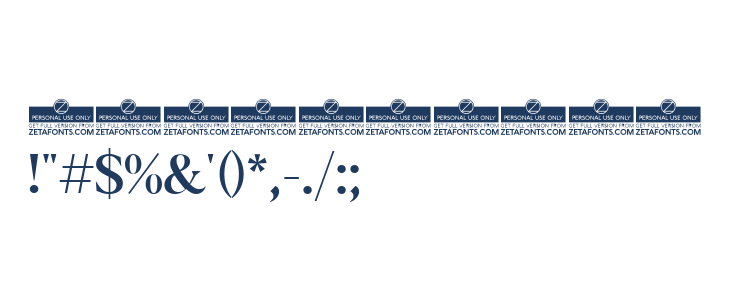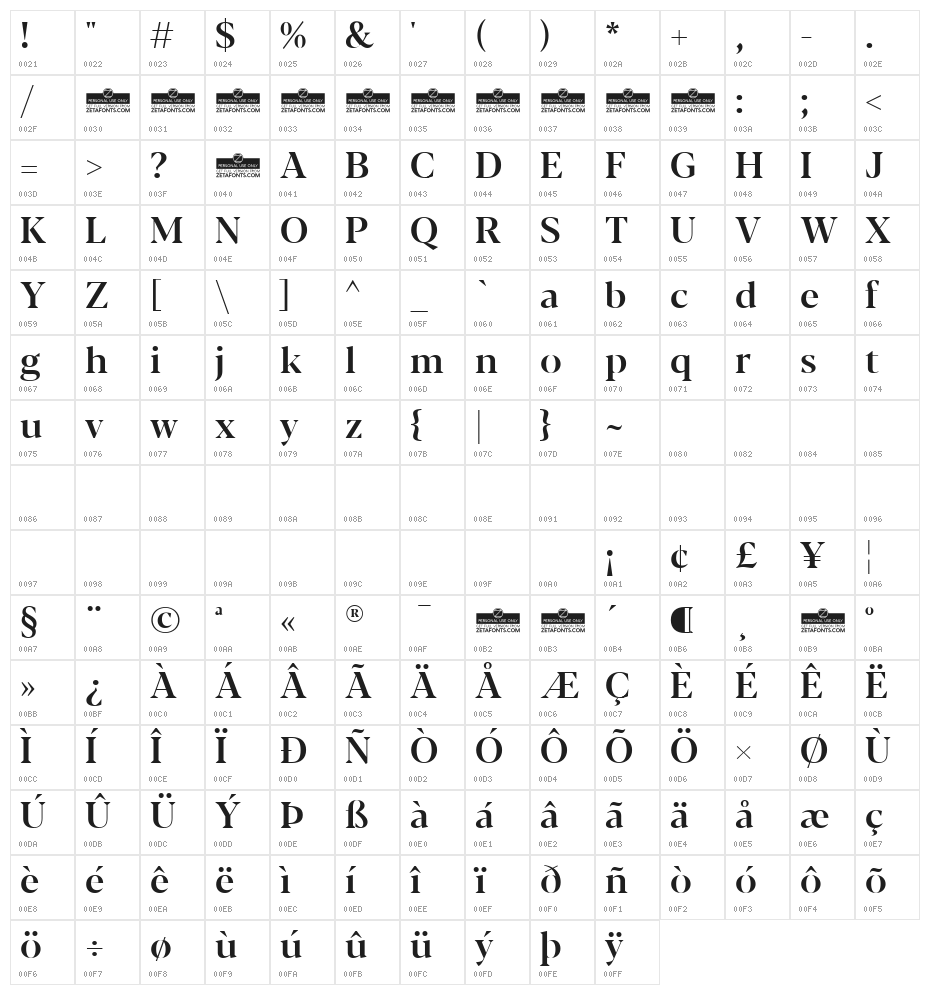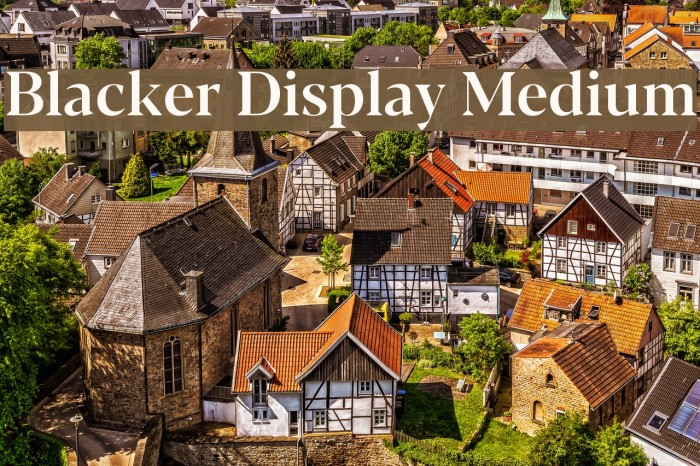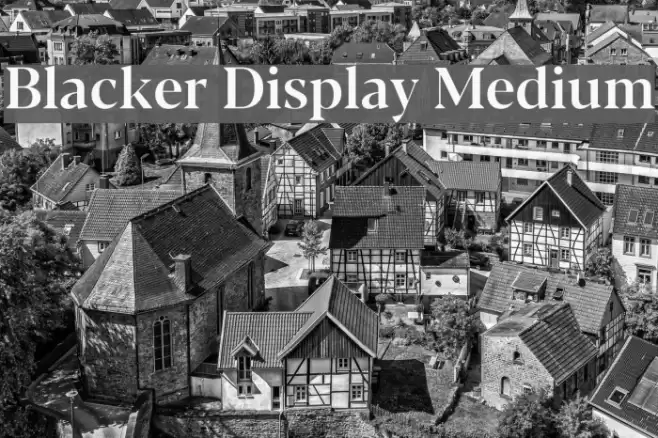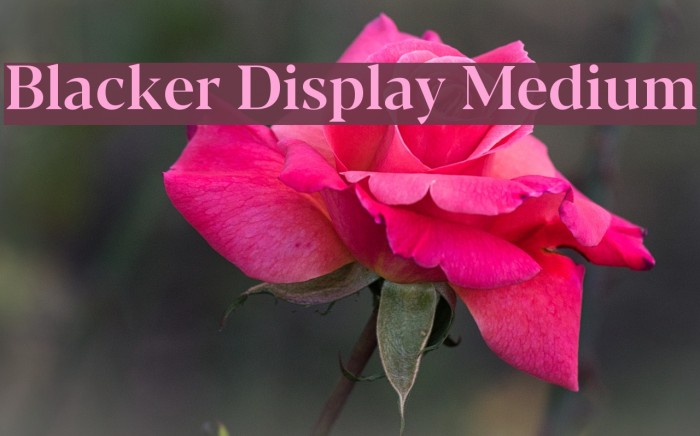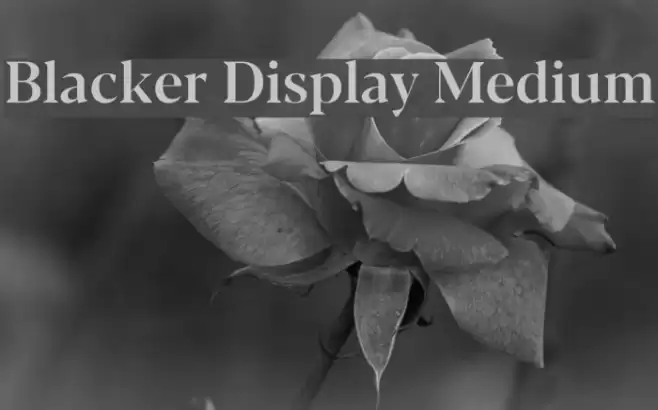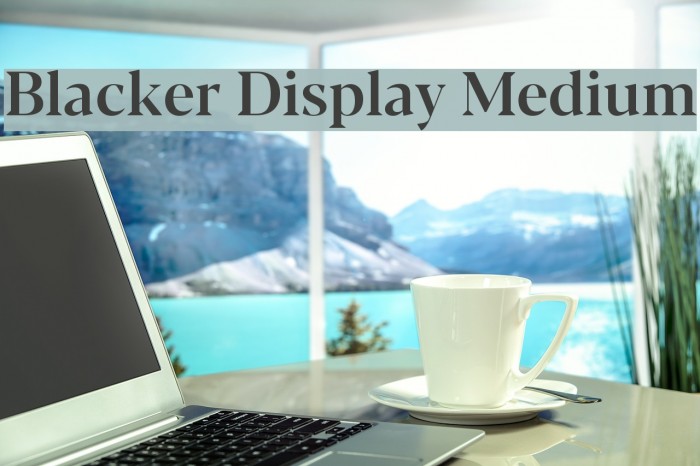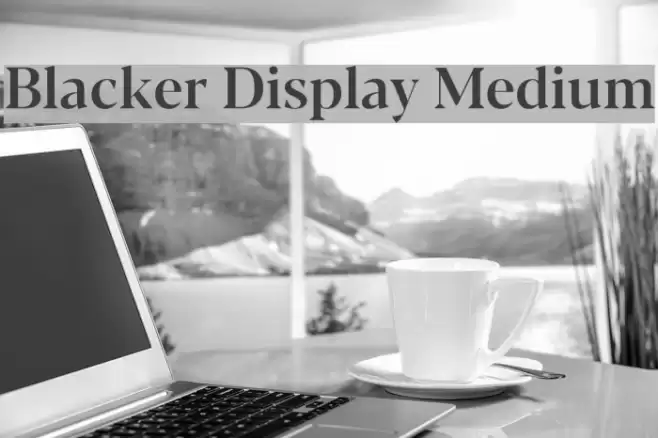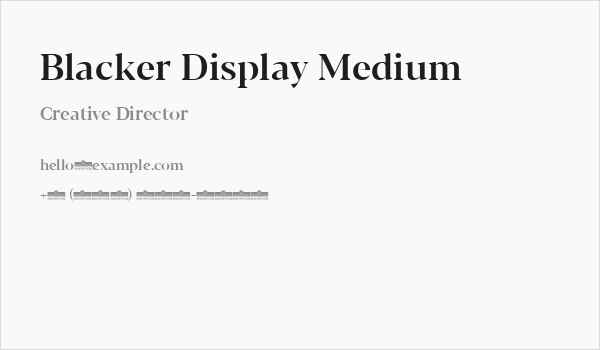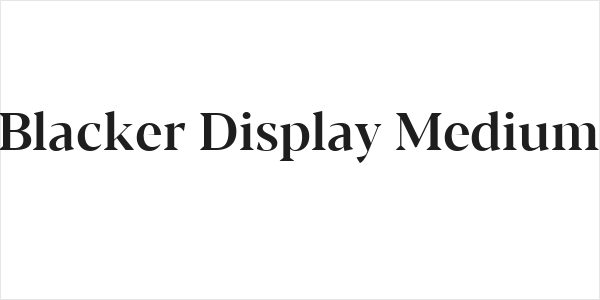
Blacker Display Medium Font
Blacker Display Medium Description
This font exhibits a strong, authoritative presence with its bold and confident strokes. The serif design adds a touch of elegance and tradition, while the medium weight ensures readability and balance. The uppercase letters are particularly striking, with sharp serifs and a slightly condensed form that commands attention. The lowercase letters maintain a consistent style, offering a harmonious blend of curves and angles. The numerals and special characters are crafted with the same attention to detail, making them suitable for a variety of applications. Overall, this font is versatile, combining classic serif elements with a modern twist, making it ideal for impactful headlines and sophisticated branding.
| Proposed Projects | Perfect for branding, editorial design, book covers, and luxury product packaging. |